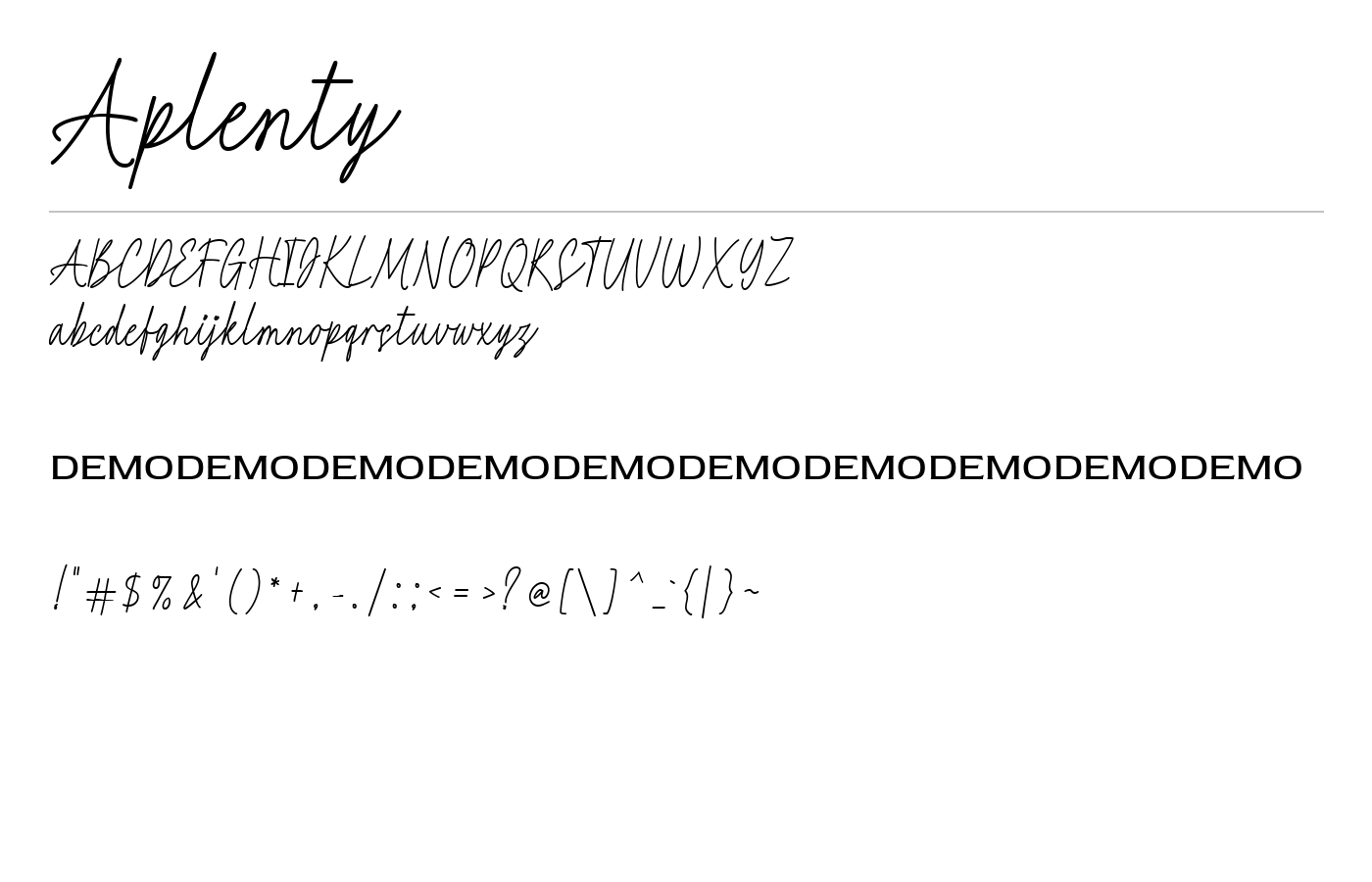
Aplenty is a delicate and elegant script font with a handwritten feel, characterized by its slender, flowing strokes and natural, casual appearance. It combines a light weight with narrow letterforms, making it perfect for adding a personal, refined touch to invitations, branding, and editorial design where a sophisticated yet approachable style is desired. Its airy and graceful lines lend a sense of creativity and warmth, ideal for lifestyle, fashion, and boutique projects.
Aplenty Font
About Aplenty Font